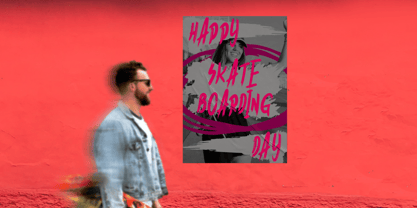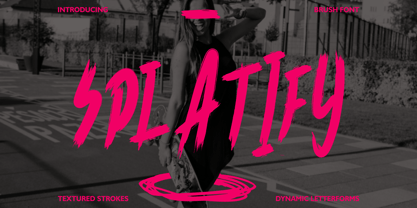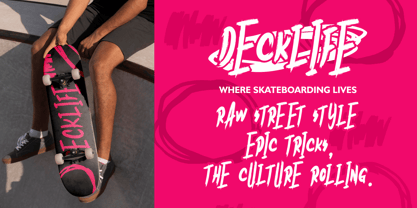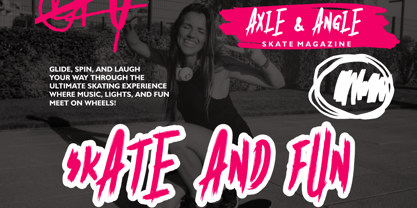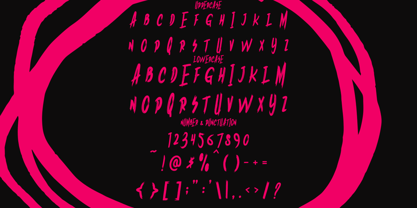
Splatify
by Shanaf
The Splatify Font Family was designed by Yesie Erma Yunita and published by Shanaf. Splatify contains 2 styles and family package options. More about this family
Splatify Brush Font is a striking typeface designed with bold brush strokes that deliver a raw, expressive feel. Each character is tall and slightly condensed, with rough edges that highlight authentic hand-painted texture. The strokes are dynamic and energetic, creating a sense of movement that makes every word look alive. This brush font balances legibility with attitude, making it perfect for projects that demand attention and creativity. With its handlettering essence, it channels the spirit of street art and urban culture while maintaining a modern, stylish edge. This versatile typeface is ideal for branding, poster titles, bold headlines, and impactful quotes. Splatify Brush Font works beautifully for merchandise, skate culture themes, book covers, stickers, or magazine titles. It also brings strong personality into packaging, advertising, or event promotions where energy and individuality are key. Whether used in large-scale designs like billboards or smaller projects like invitations, this font will ensure your message stands out. With Splatify Brush Font, designers gain a flexible tool that combines edgy brush aesthetics with contemporary street style to elevate any creative project.
Designers: Yesie Erma Yunita
Current Foundry: Shanaf